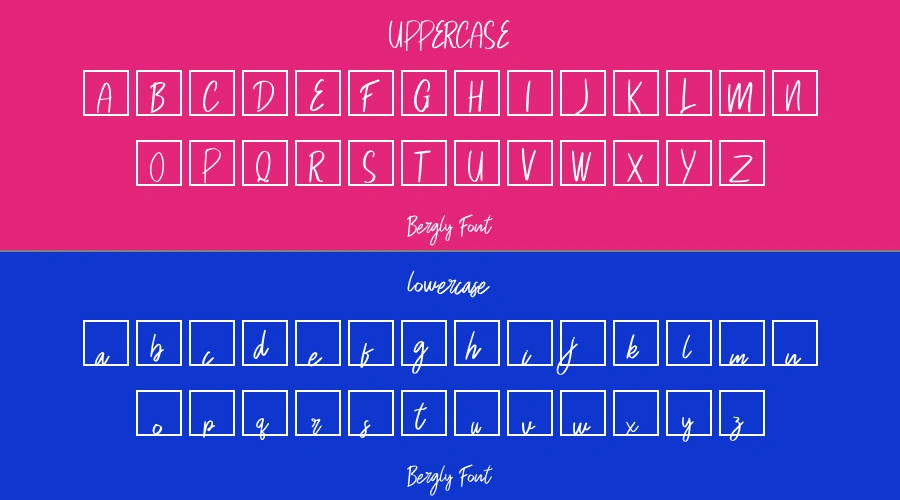
About Bergly Font
Bergly Font stands out for its distinctive combination of brush influence and adaptability. Ideal for editorial design, it provides the consistency and design innovation that professional projects demand. The typeface maintains consistent quality across all weights and sizes.
Key features include refined geometric precision and practical proportional figures, enhancing typographic expression. In brochures applications, Bergly Font demonstrates exceptional special effects. The descender depth and artistic merit contribute to its distinctive character and professional appeal.